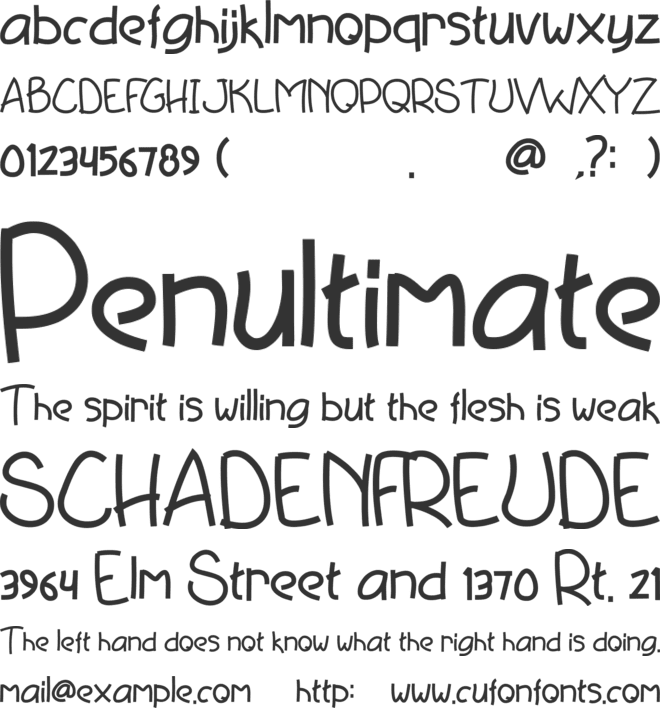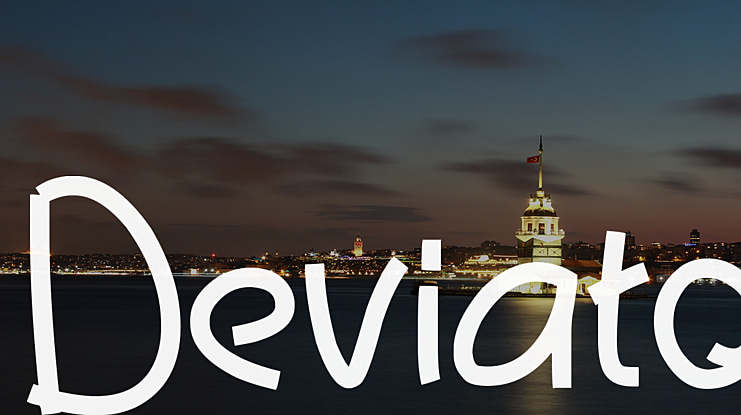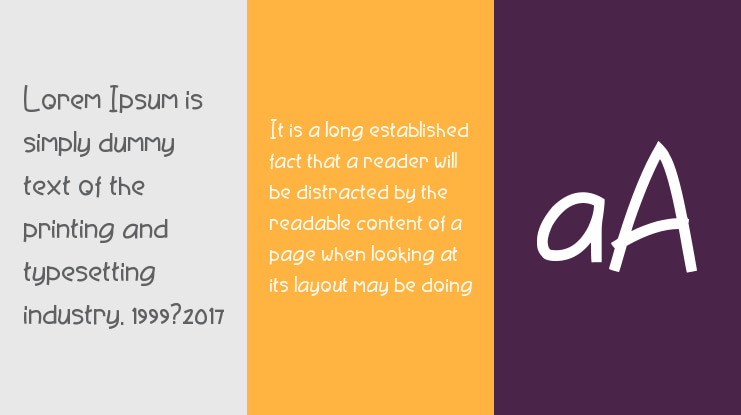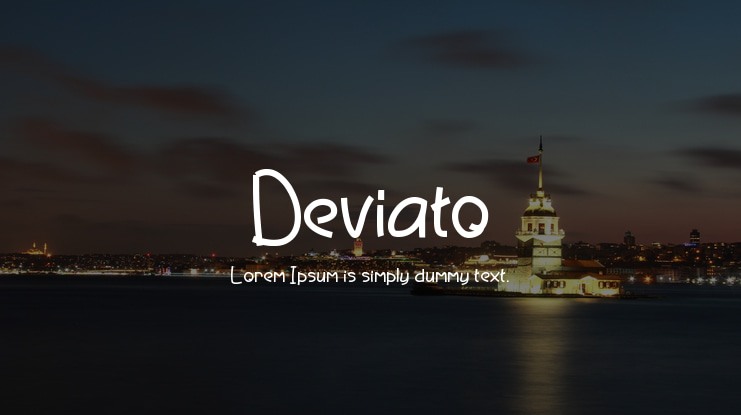
Deviato Font
I present to you a font that look casual and modest, Deviato. It was made to your need of a mono-line font that look simple in design and shows modesty on it’s appearance. Deviato is a mono-line-handwritten font that suitable for your need of a font that can be applied in various way of design like logotype, personal or company branding, logo, quotes, daily typing font, greeting card, sticker, and many more. This font comes in regular, bold, italic, bold italic style and support multi-language (full version).